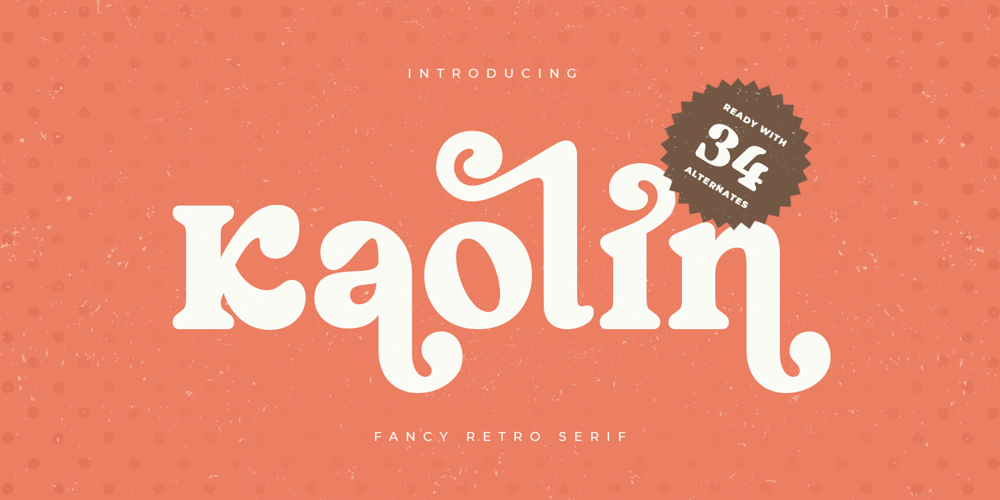
Kaolin Style Font Family was designed by Zamroni Hamzah and published by Sensatype Studio. Kaolin Style contains 1 styles and family package options. Kaolin is a Fancy Retro Serif FontA New Fancy Retro font that we created special for Unique branding needs, . It’s so nice to leverage designer or product owner that need solutions to make their design look more unique and vintage.Kaolin Modern Vintage Display font ready with: Lowercase and Uppercase characters Numbers and Punctuations Preview as a inspirations that you can do with Kaolin font Available for PC and Mac Wish you enjoy our font.